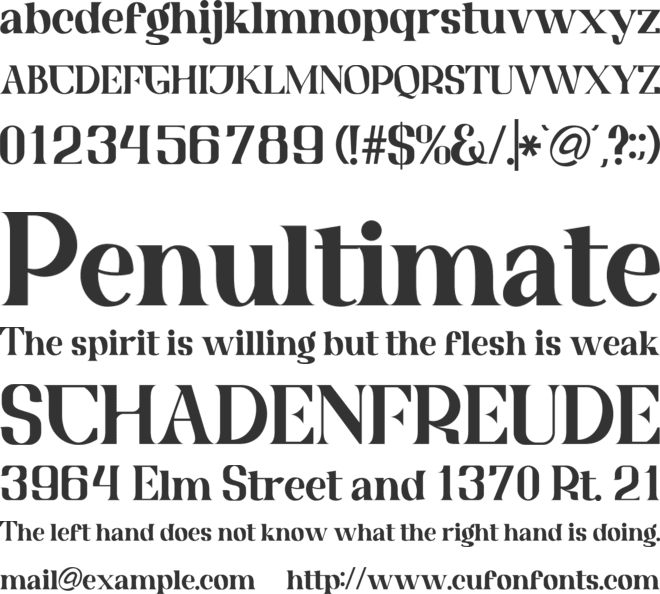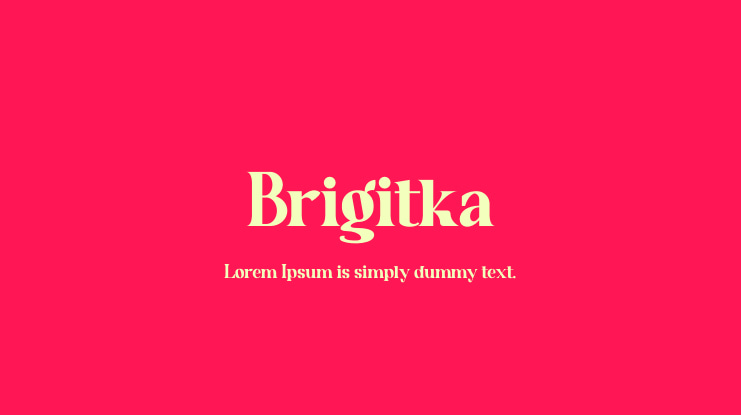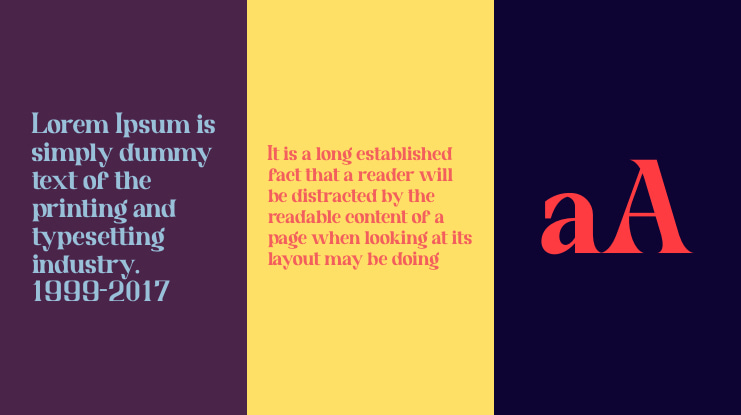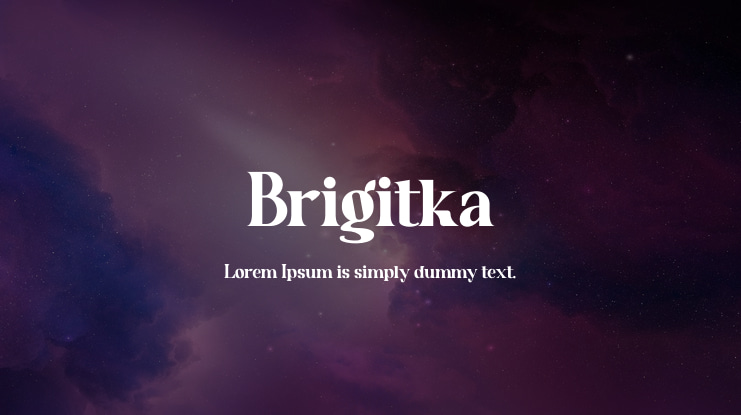
Brigitka Font
Brigitka is perfect choice for you if you looking for clean, modern, minimalist, elegant and beauty design styles. Suitable for almost any graphic designs such as logo, branding materials, business cards, gift cards, t-shirt, cover, thumbnail, print, poster, photography, quotes .etc